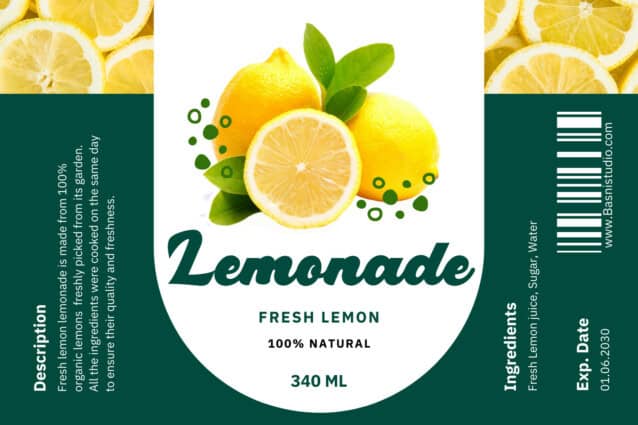
Bargeming Display Script Font
Bargeming Display Script Font is a cool display font inspired by the ’70s design era. Retro Lettering offers beautiful typographic harmony for a diversity of design projects, including logos & branding, social media posts, advertisements & product designs.